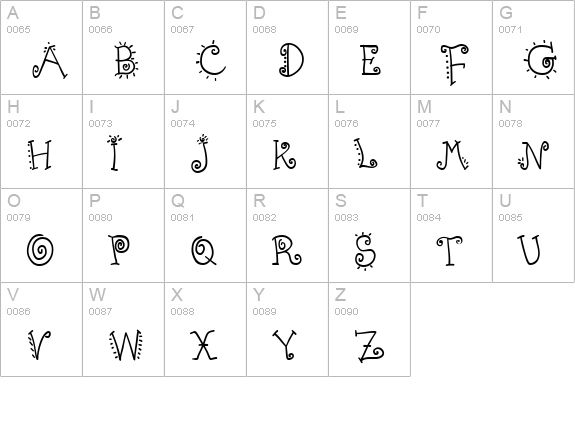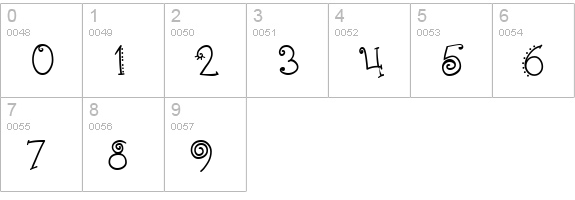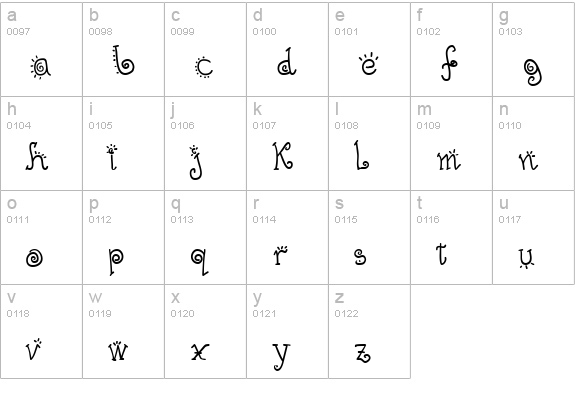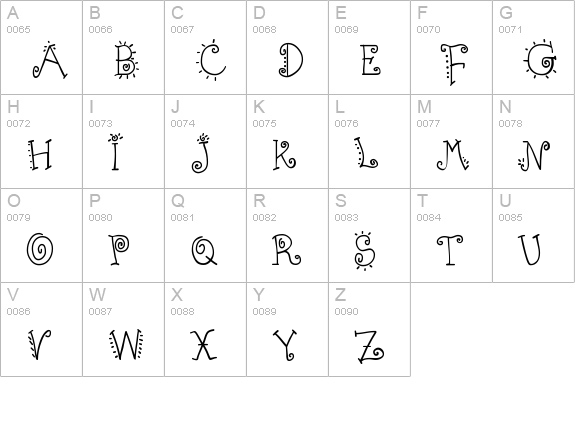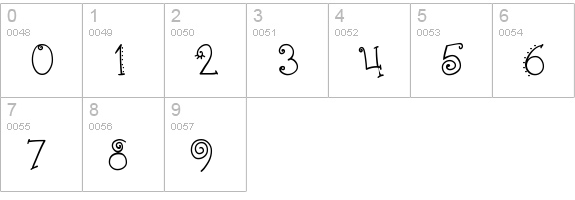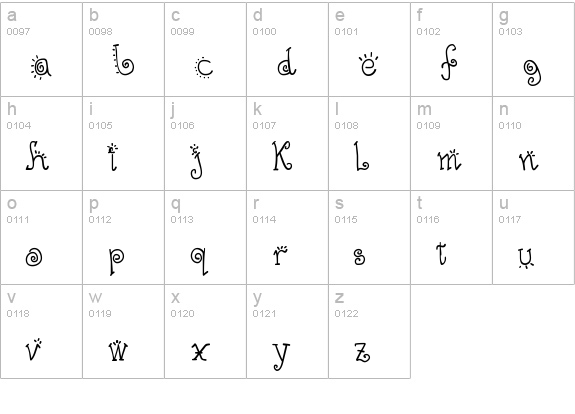
AbcAlegria Font Details
AbcAlegria font is a charming and whimsical typeface that exudes a sense of joy and playfulness. Its elegant curves and unique letterforms make it perfect for a variety of design projects, from invitations to branding to social media graphics. This versatile font is sure to add a touch of creativity and personality to any project. Best of all, AbcAlegria font is completely free to download at FontsMarket.com. Whether you're a seasoned designer or just starting out, this font is a wonderful addition to your collection. Don't miss out on the opportunity to enhance your designs with the delightful AbcAlegria font today!